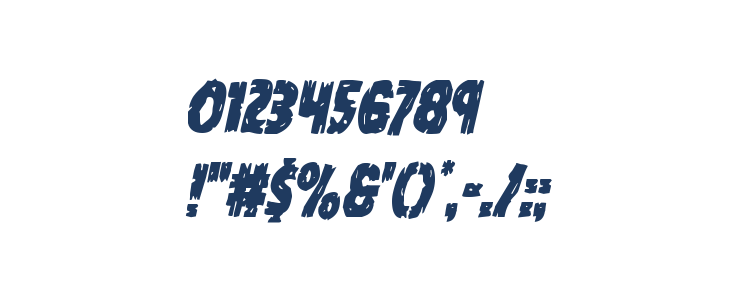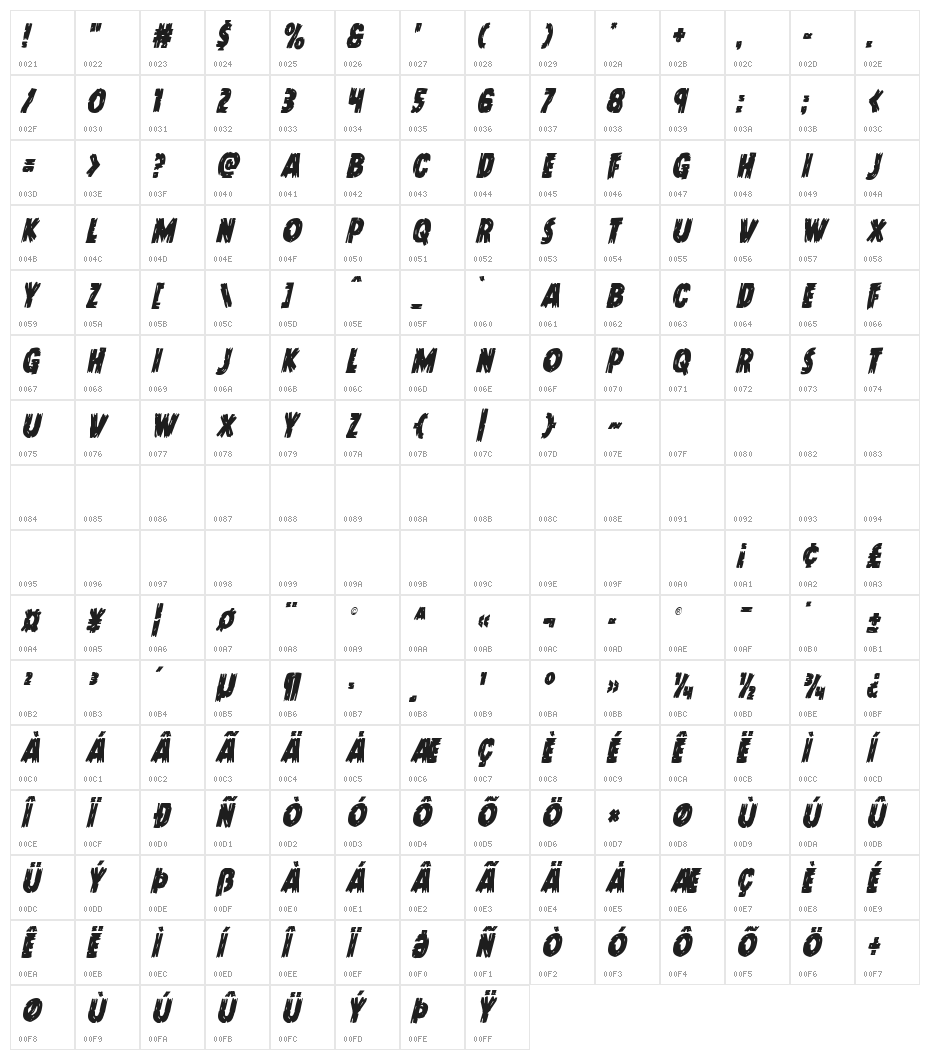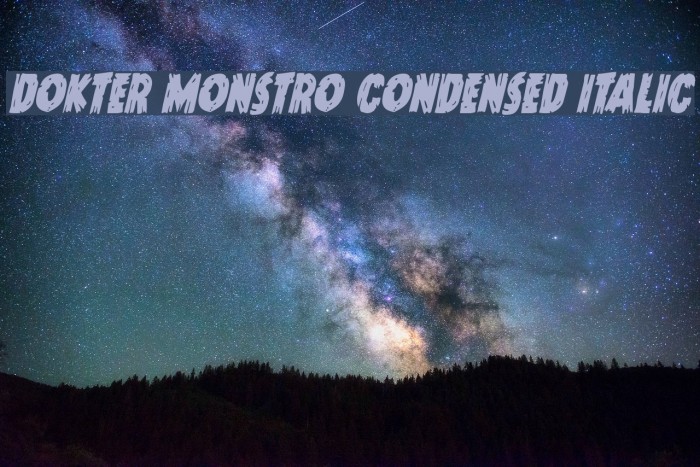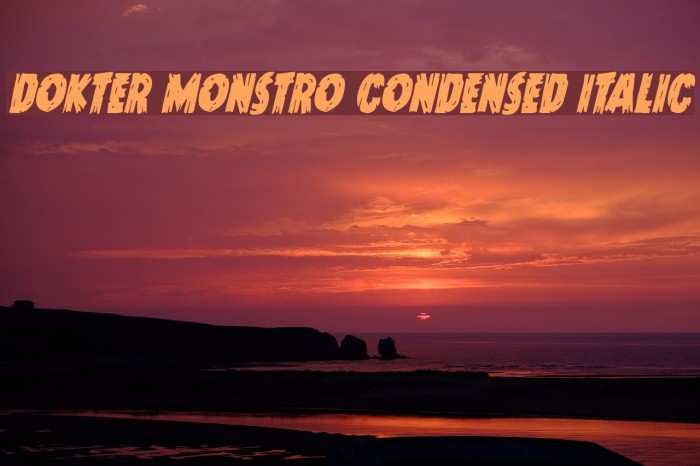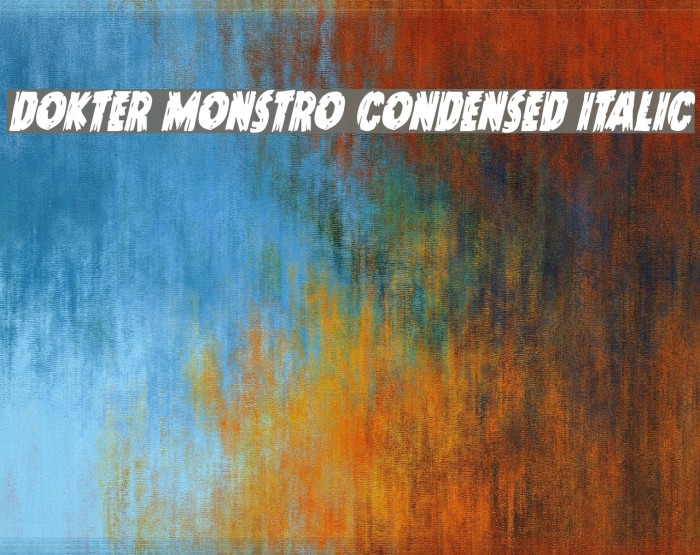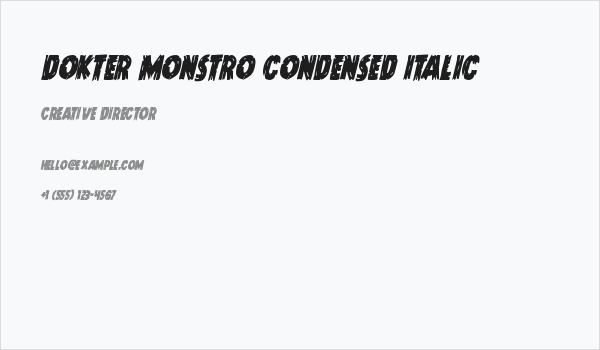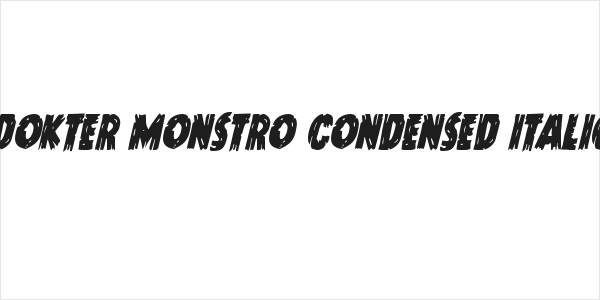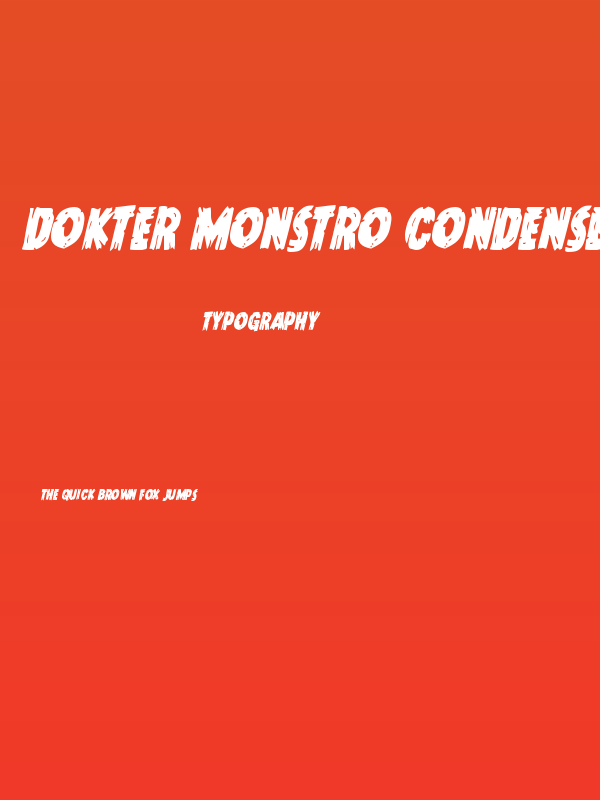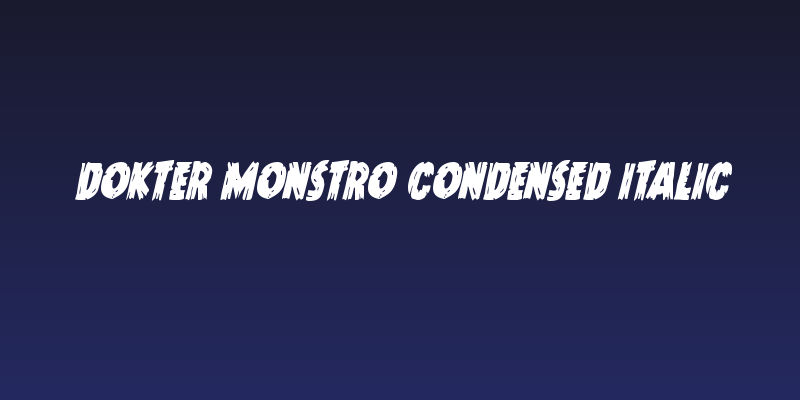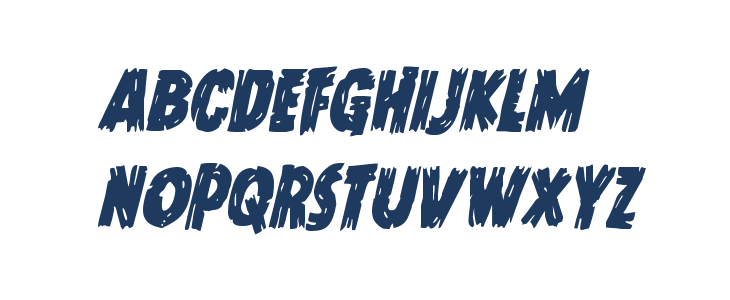
Dokter Monstro Condensed Italic Font
Dokter Monstro Condensed Italic Description
This font features a bold and dynamic style with a distressed, jagged appearance that gives it a sense of movement and energy. The characters are condensed and italicized, creating a compact and slanted look that enhances its edgy and aggressive vibe. The strokes are thick and uneven, contributing to a high contrast between the filled and empty spaces within each letter. This design is particularly eye-catching and suitable for attention-grabbing headlines or artistic projects that require a dramatic flair. The font's unique texture and boldness make it stand out in any design context.
| Proposed Projects | Ideal for posters, album covers, video game graphics, and edgy branding materials. |